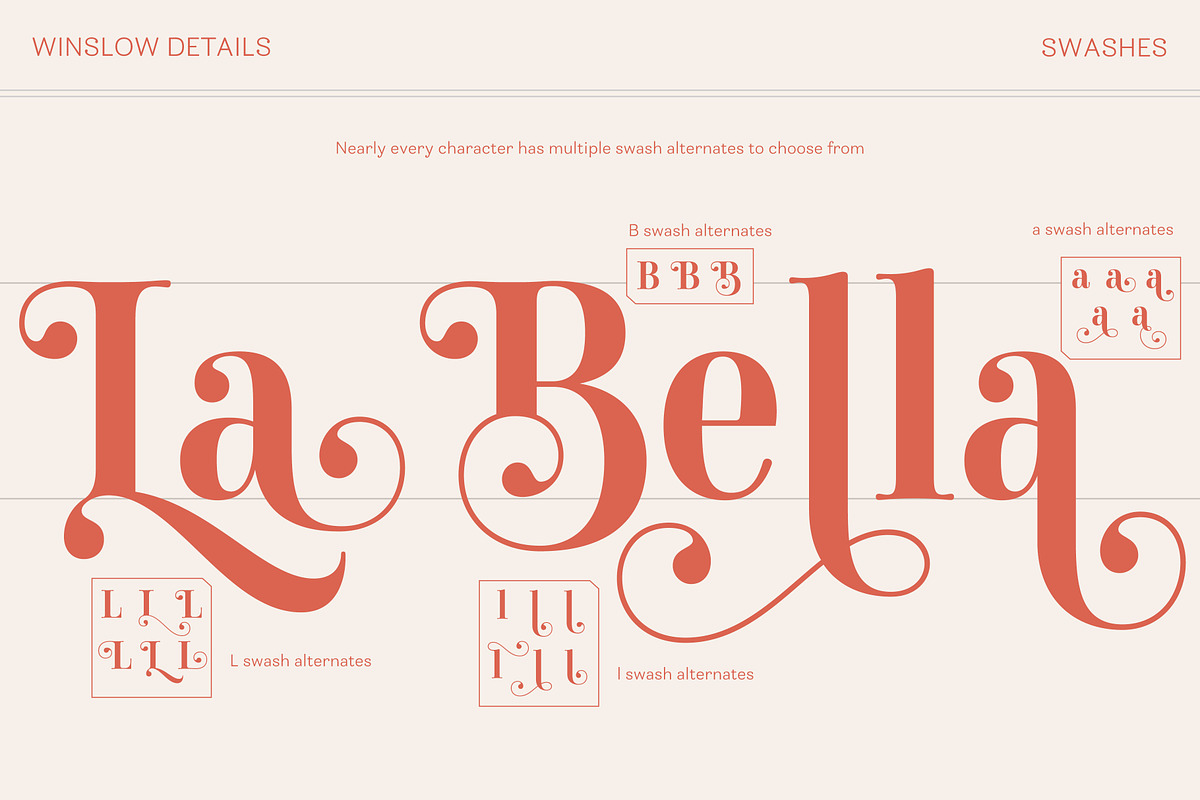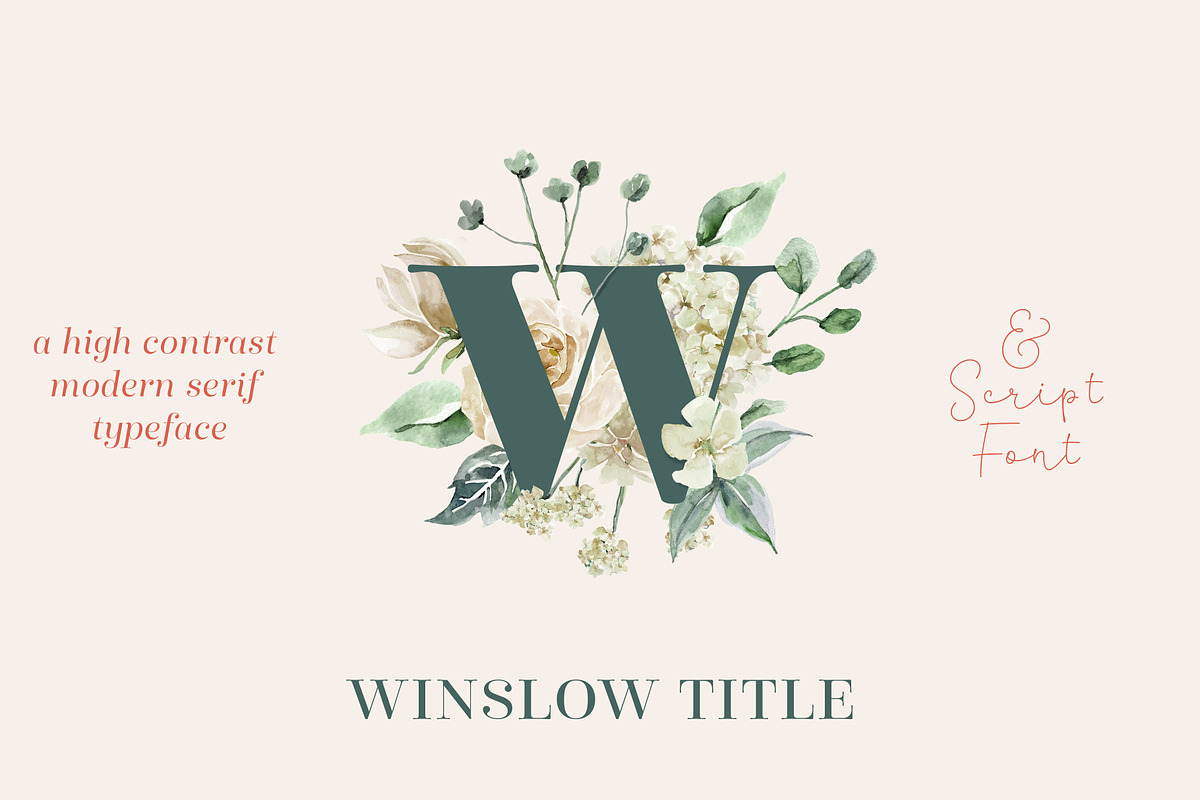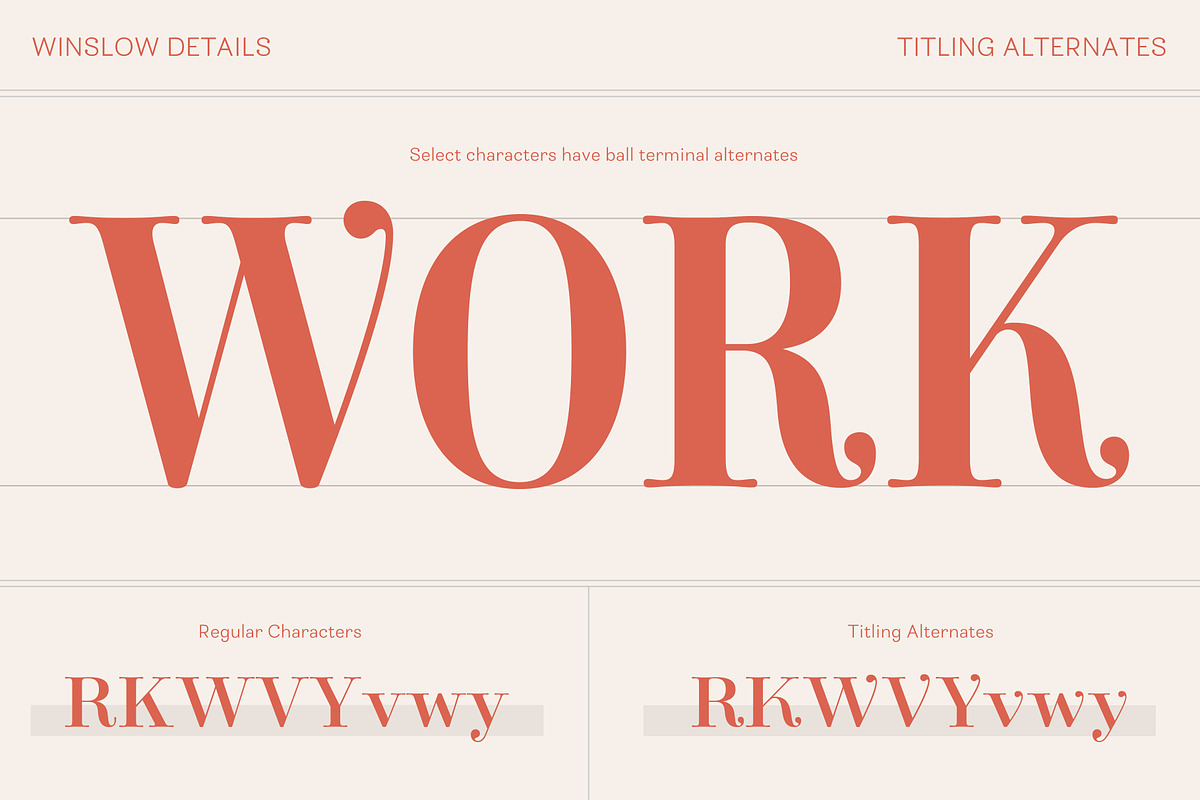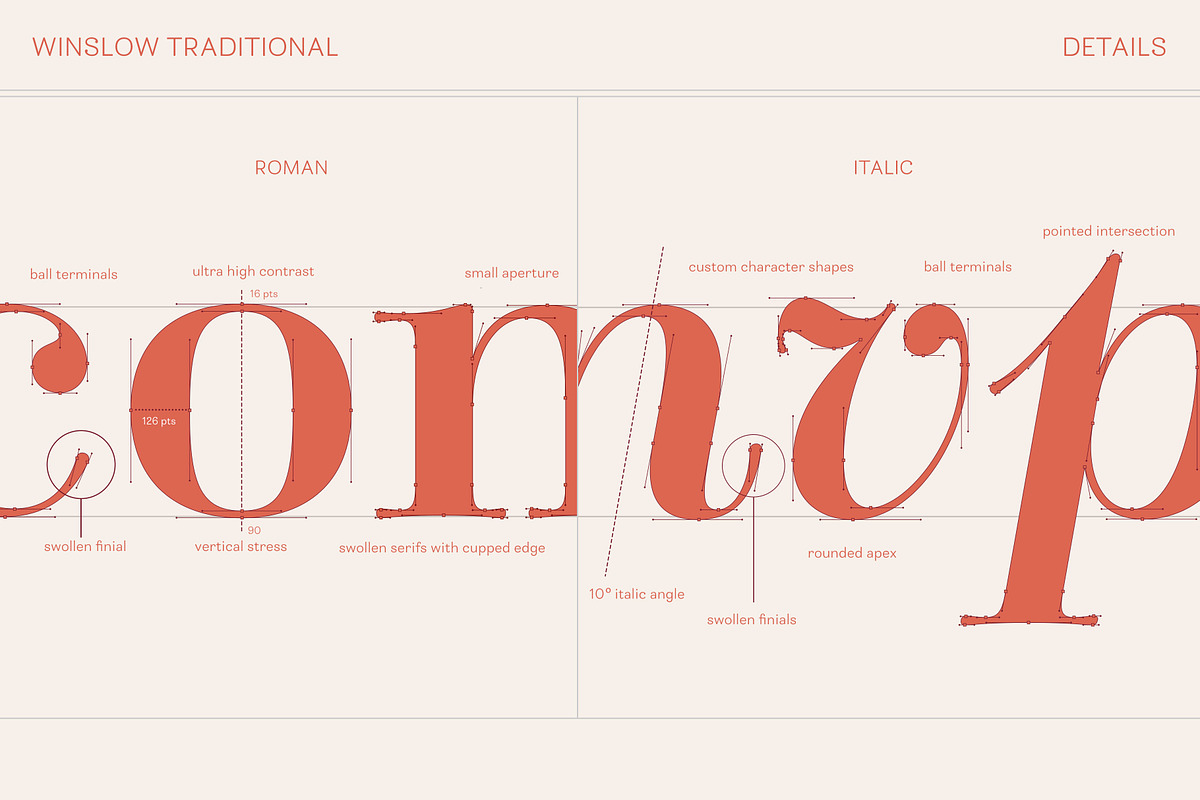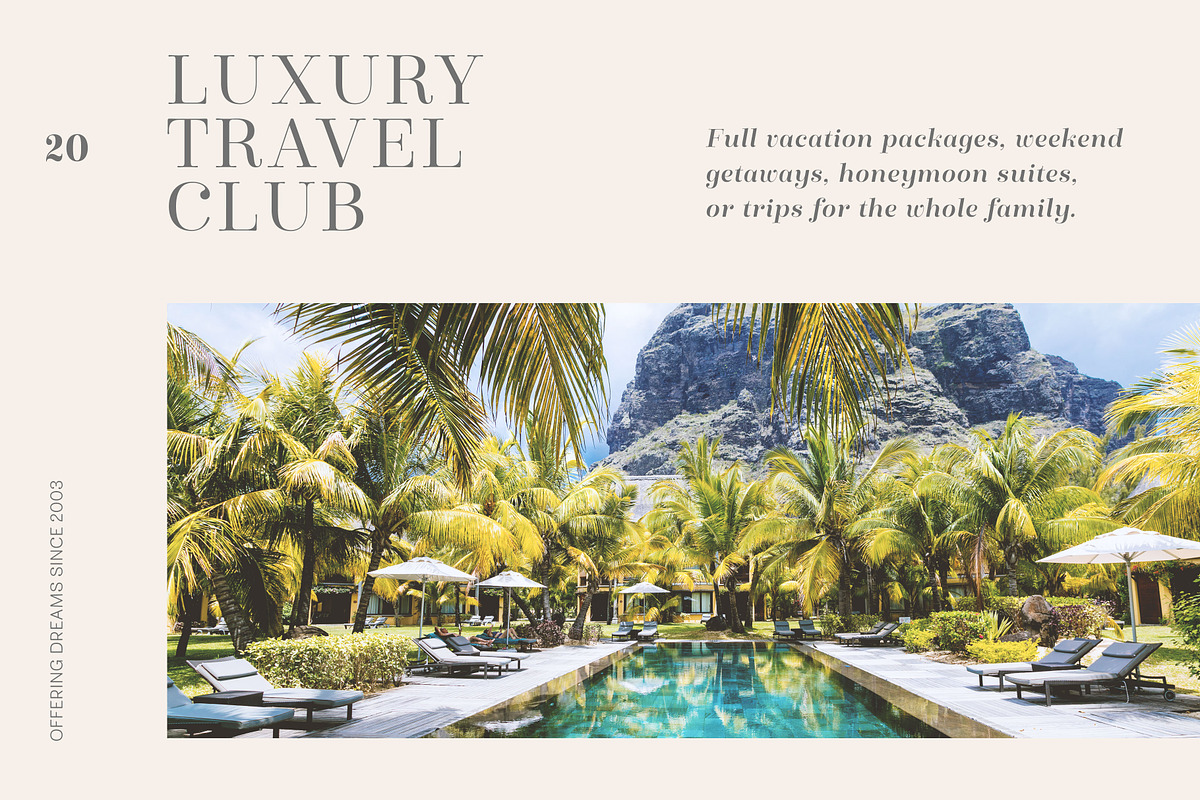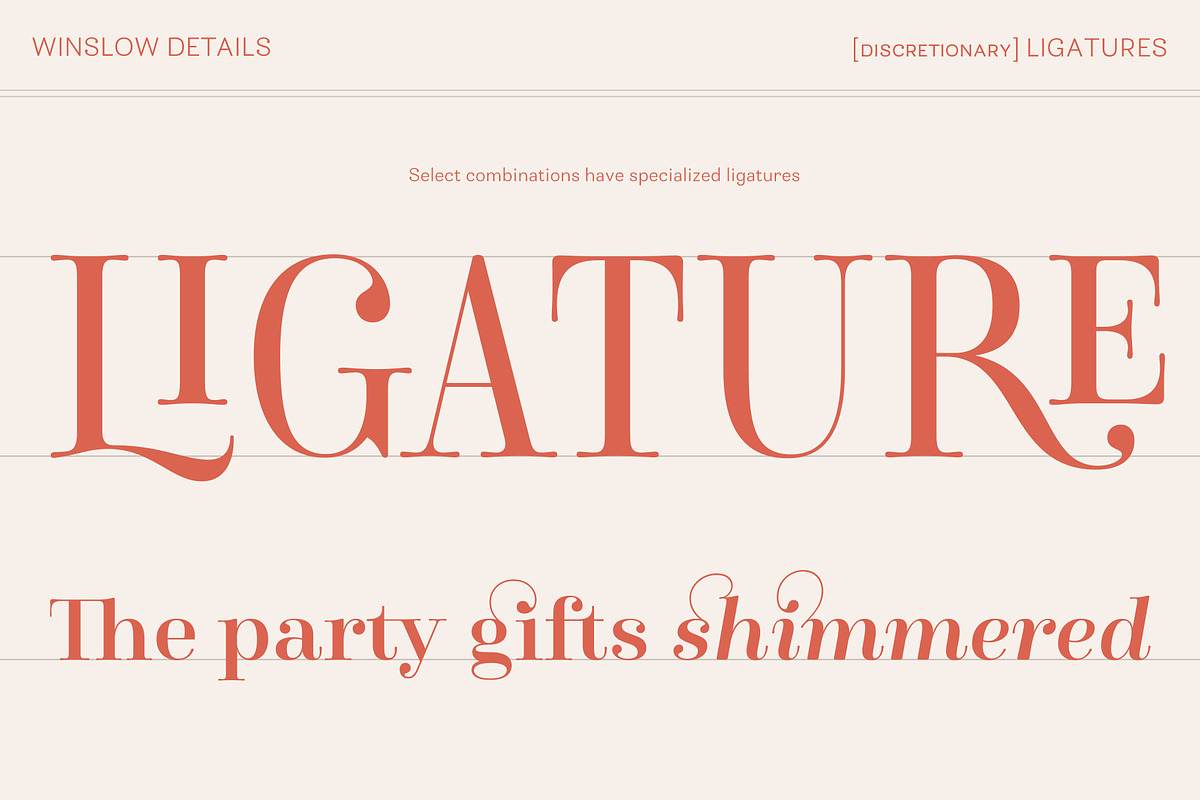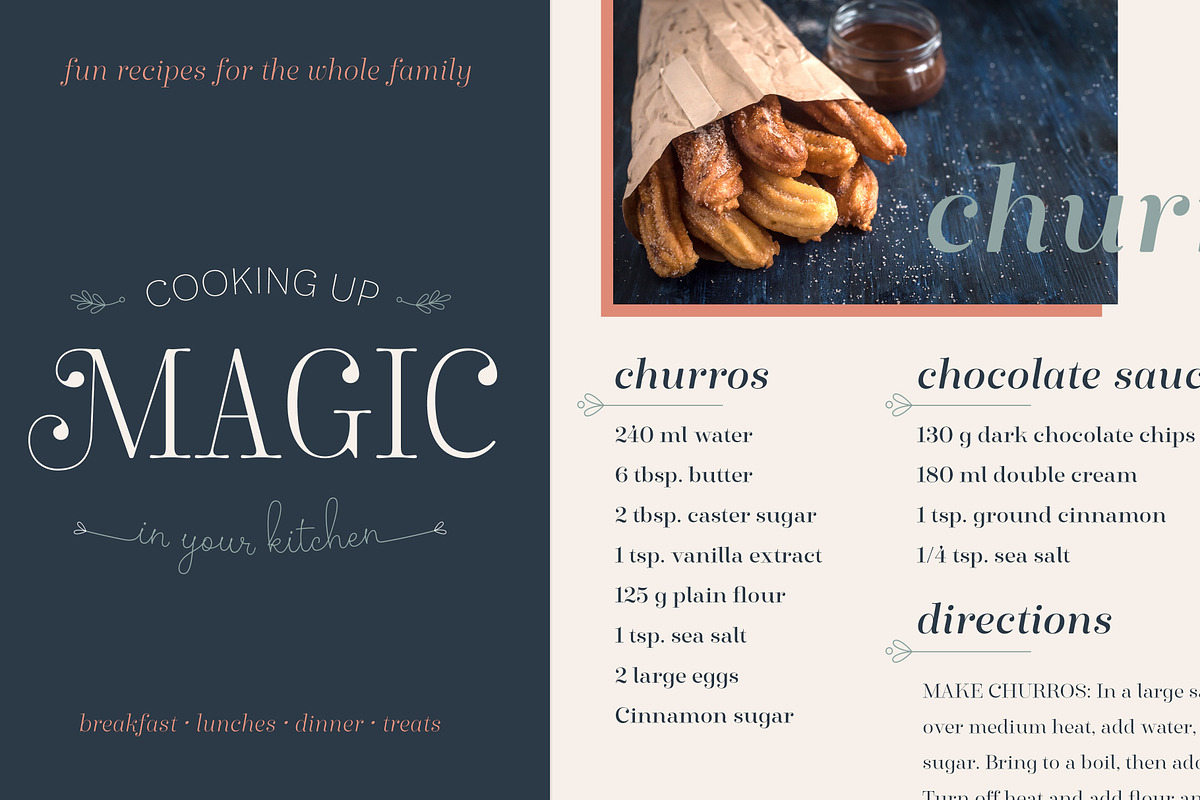
Winslow Title Complete Family
Winslow Title is a high contrast modern type family comes in two styles AND includes a separate monolinear script family. The traditional proportions of Winslow Title are historical in nature and follow the design and style of Winslow Book as a high contrast variant. The Winslow Title Mod family is a contemporary take on the style, with tapering terminals and less pronounced finials. Each family includes both styles, to be accessed through the opentype panel as a stylistic alternate. While I am offering both styles as separate font files, using the Opentype panel removes the need to install both. Simply pick which style you want to be the principle font.
The typeface family comprises of roman and italic styles in six weights from Hairline to Black and two widths in the roman style: Regular and Narrow. The accompanying script family has a single weight but offers five tracking widths, from Narrow to Wide.
The bundle is an elegant combination of styles perfect for titling and display design.
The serif typeface is packed with features that make ideal titling styles. Not only do they include the Stylistic Alternates, but also Titling Alternates, Discretionary Ligatures, Small Capitals, Swashes and Contextual Ligatures.
As noted previously, the typeface comes in two styles, traditional and modern. Each can be accessed either by the Stylistic Alternates or Stylistic Sets.
Titling Alternates are alternates that expand the ball terminals to K, R, V, W, and Y (see Titling Alternates slide).
Contextual Ligatures are for capital combinations with A that tighten the gap created by the extended serifs. It connects characters with a pairing serif (the lower right serif of the M with the lower right serif of the A) and bridges them together. This combination works for single and multiple A combinations. It is turned on automatically in the Opentype panel and shouldn’t need to be accessed individually.
Alternatively, the Discretionary Ligatures feature combines diagonal or baseline stems with lifted small capitals, creating a unique combination of characters.
Swashes is an extensive feature that offers up to five swash options per many of each character. These can be selected via the Glyphs panel or as character alternates in Adobe programs.
The Script family has a feature set of it’s own, with initial and final swashes on lowercase letters, middle swashes for select characters, and a titling feature that joins words together by replacing the space with a line. Stylistic alternates create a bouncing baseline on connecting strokes.